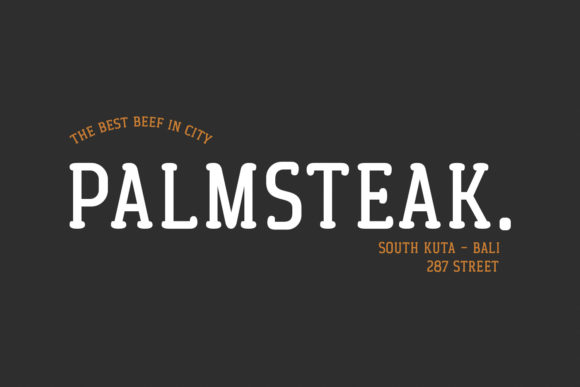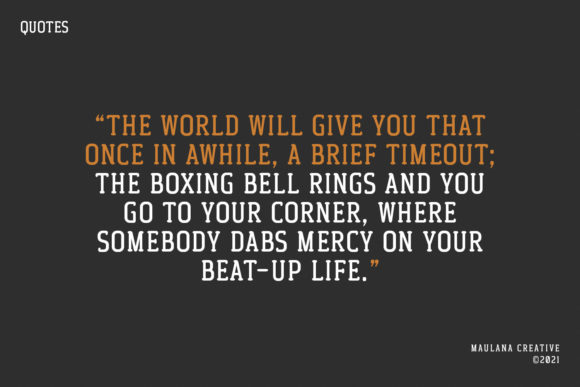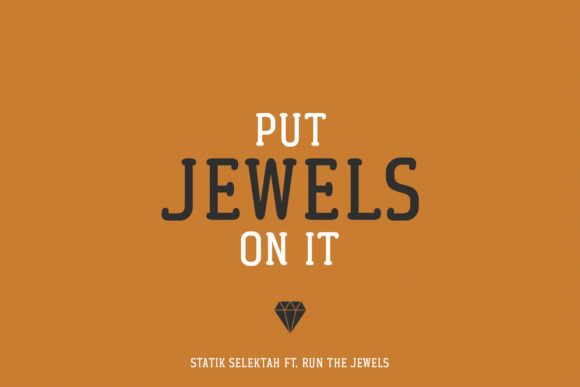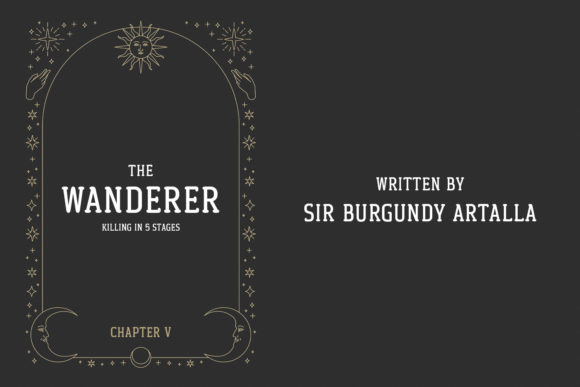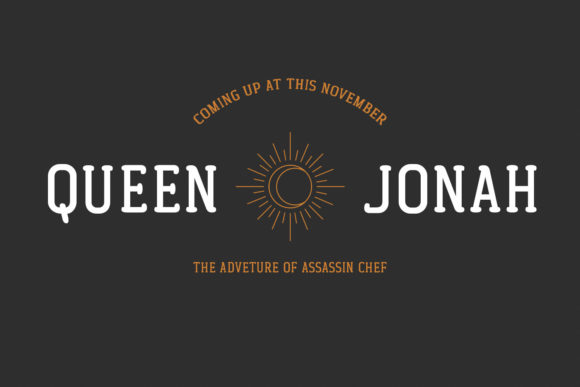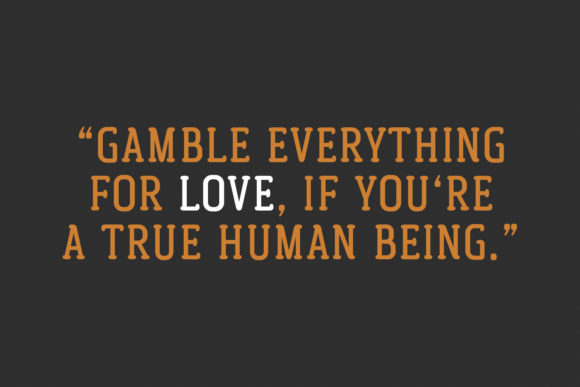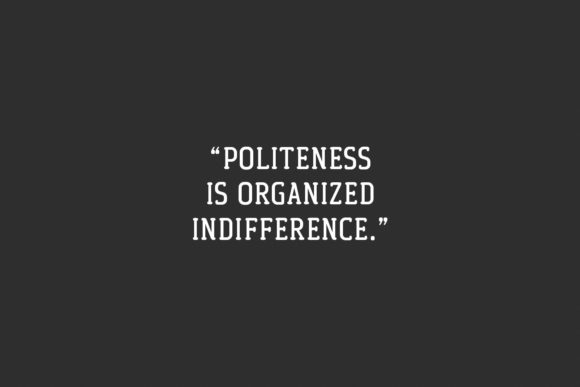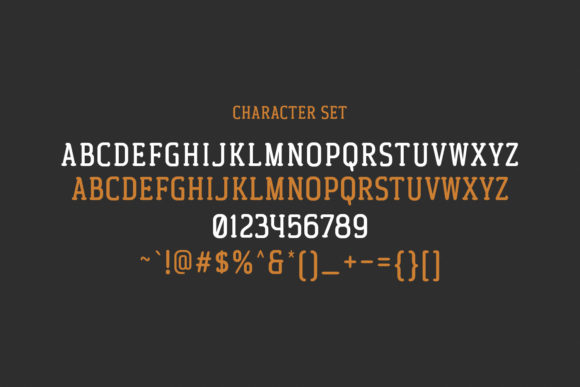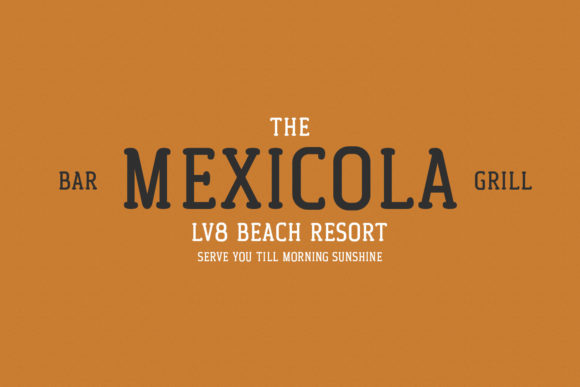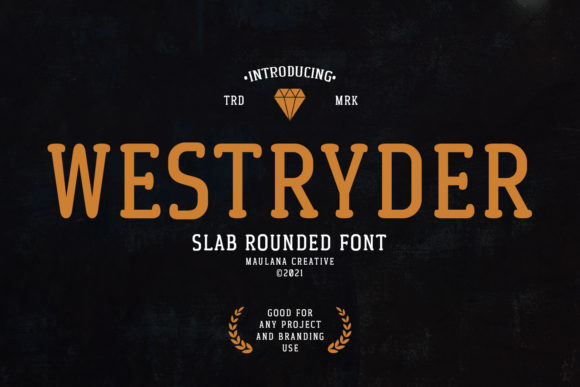
Westryder
Westryder: A Vintage-Styled Slab Serif Font
Westryder is a distinctive slab serif font that combines vintage styling with modern versatility. This typeface is designed to add a touch of classic charm to a wide range of projects, particularly those in the food and print industries.
Key Features of Westryder
• Vintage Style: Evokes a sense of nostalgia with its retro-inspired design.
• Slab Serif Structure: Features the characteristic thick, rectangular serifs typical of slab serif fonts.
• Versatile Application: Suitable for various projects, especially in food and print media.
• Eye-Catching Design: Created to make a strong visual impact in menus, posters, and flyers.
• Endless Possibilities: Offers a wide range of creative options for designers.
Ideal Uses for Westryder
Westryder’s unique characteristics make it particularly well-suited for:
• Food menus for restaurants and cafes
• Posters and flyers for events or promotions
• Print materials with a vintage flair
• Branding projects seeking a classic look
• Packaging design for artisanal or retro-styled products
When incorporating Westryder into your designs, consider the following tips:
• Use for headlines or short blocks of text to maximize its vintage impact
• Experiment with different sizes to highlight the font’s unique details
• Take advantage of its versatility across various food and print-related projects
Westryder is an excellent choice for designers looking to add a vintage-styled slab serif font to their typographic toolkit. Its ability to enhance various design projects, particularly in the food and print industries, makes it stand out in the world of typography. Whether you’re working on logo designs for retro-inspired brands, creating layouts for restaurant menus, or developing eye-catching posters and flyers, Westryder offers the perfect blend of classic charm and modern versatility.
Add Westryder to your creative projects and explore its endless possibilities. From stunning food menus to impactful print materials, this font provides the tools to create memorable typography that resonates with audiences seeking a touch of vintage elegance. It’s versatile enough to be used in various contexts, from vintage-inspired designs to more contemporary layouts that need a classic twist.
Whether you’re creating a magical and nostalgic atmosphere for a themed restaurant or aiming for a more sophisticated and timeless mood in your print designs, Westryder can adapt to your needs. Its flexibility allows it to work well in both rustic, vintage-style projects and contemporary designs that require a touch of classic elegance. For those looking to add a dash of nostalgia to their work, this font can even complement vintage-inspired creations with a unique, timeless twist.